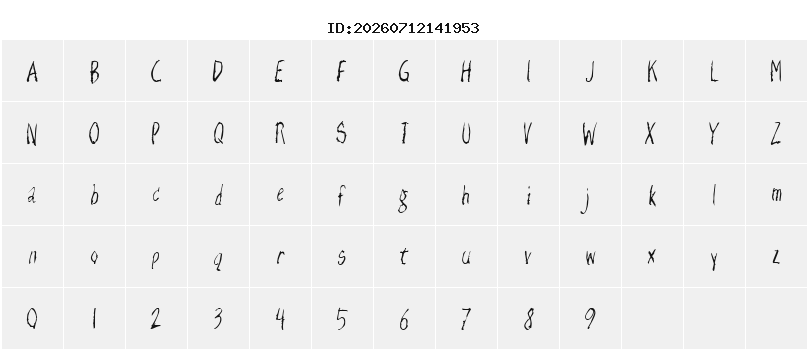
Razor Keen Preview
• Font Name: Razor Keen
• Full Font Name: Razor Keen
About Razor Keen.ttf
Razor Keen.ttf is a modern, elegant sans-serif font designed for ultimate readability and visual harmony. Perfect for branding, headlines, web design, and print materials.